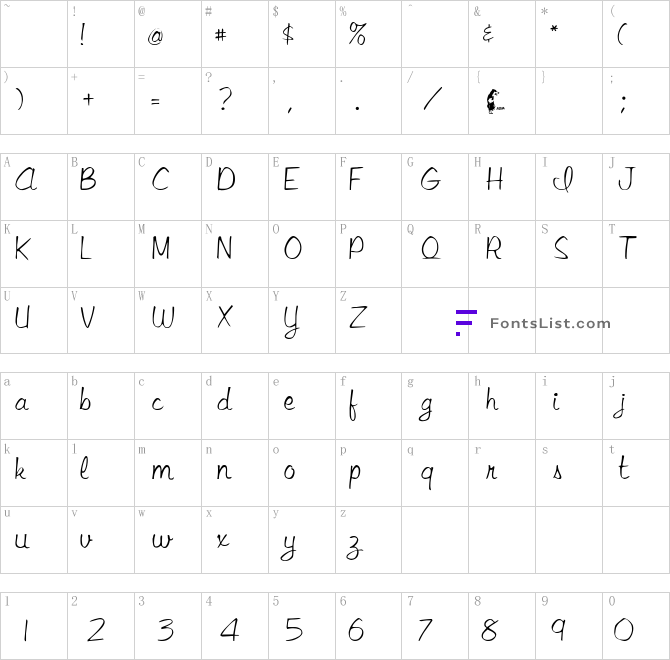
- Font Name:AppleScript
AppleScript.ttf is a very beautiful artistic font, AppleScript.ttf is widely used in the design and printing of various books and pictures,AppleScript.ttf has a strong visual impact,AppleScript.ttf is a commonly used font in newspapers, magazines and books, and is used in posters, e-commerce Poster design, store design, logo design, font design and other fields.AppleScript.